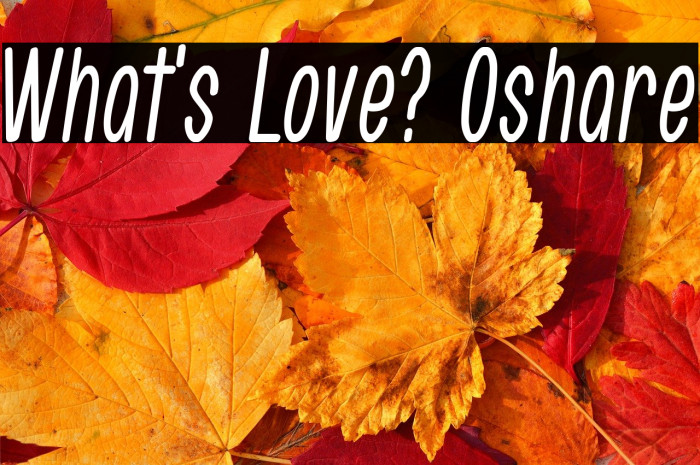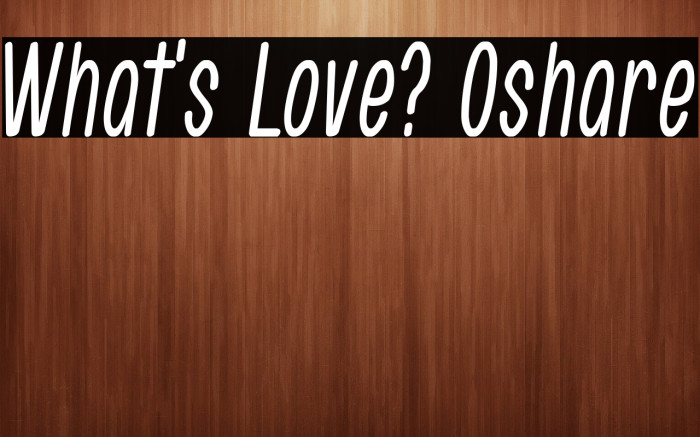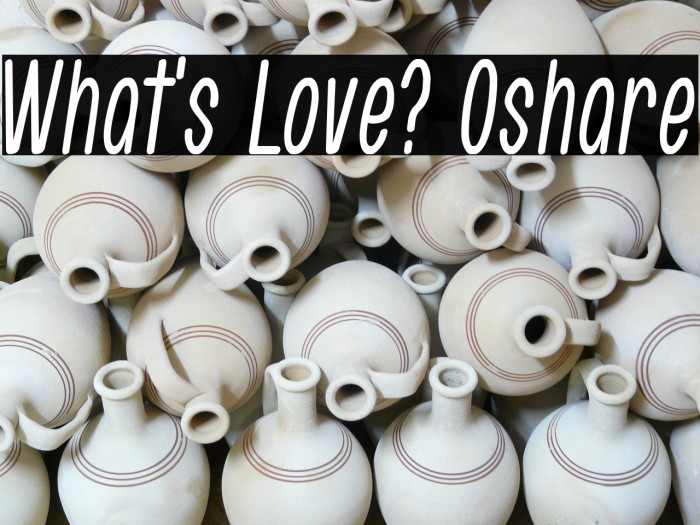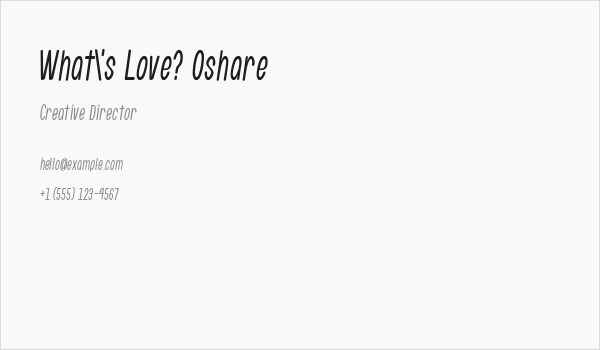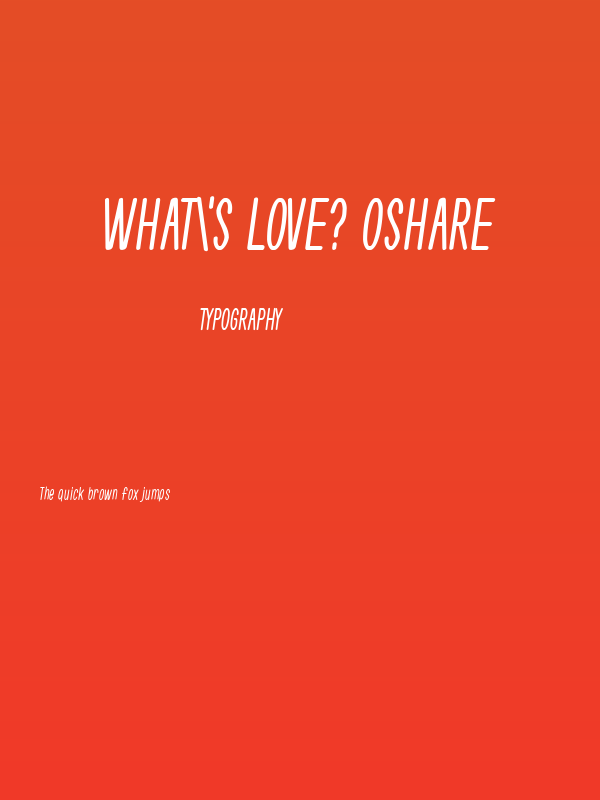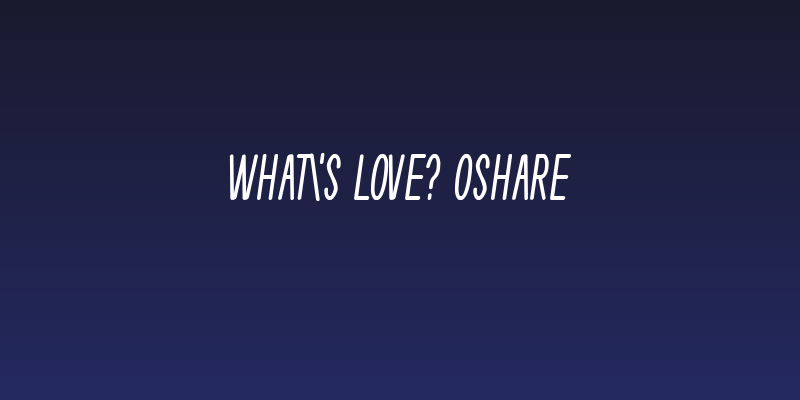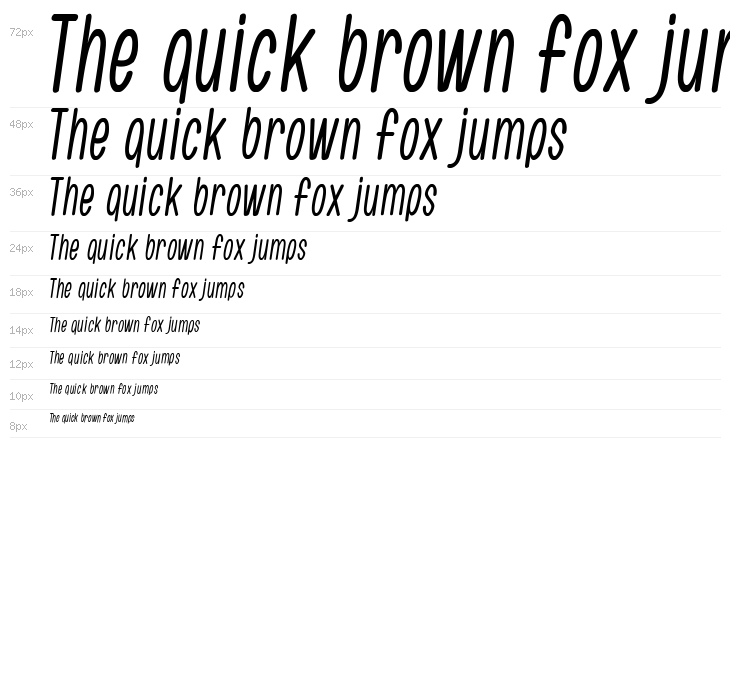
What's Love? Oshare Font
What's Love? Oshare Description
This font features a playful and casual handwritten style, characterized by its tall, narrow letterforms and slightly slanted orientation. The strokes are smooth and consistent, giving it a friendly and approachable appearance. The uppercase and lowercase letters maintain a uniform height, contributing to its cohesive look. Numbers and special characters are designed with the same playful aesthetic, making them blend seamlessly with the alphabet. The overall design is clean and legible, suitable for a variety of informal applications.
| Use Case | Headlines, Informal text, Branding |
| Proposed Projects | Ideal for greeting cards, children's books, casual branding, and social media graphics. |